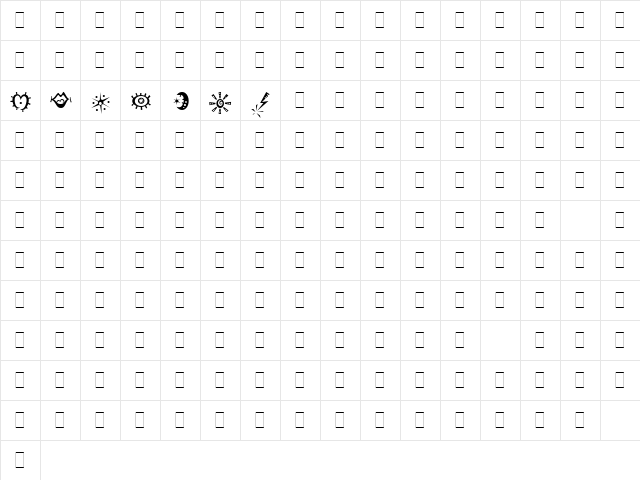
Jokerman Alts LET Plain
Design Context for Jokerman Alts LET Typeface
Jokerman Alts LET is a composed and adaptable typeface that performs quietly and consistently across a wide range of design contexts.